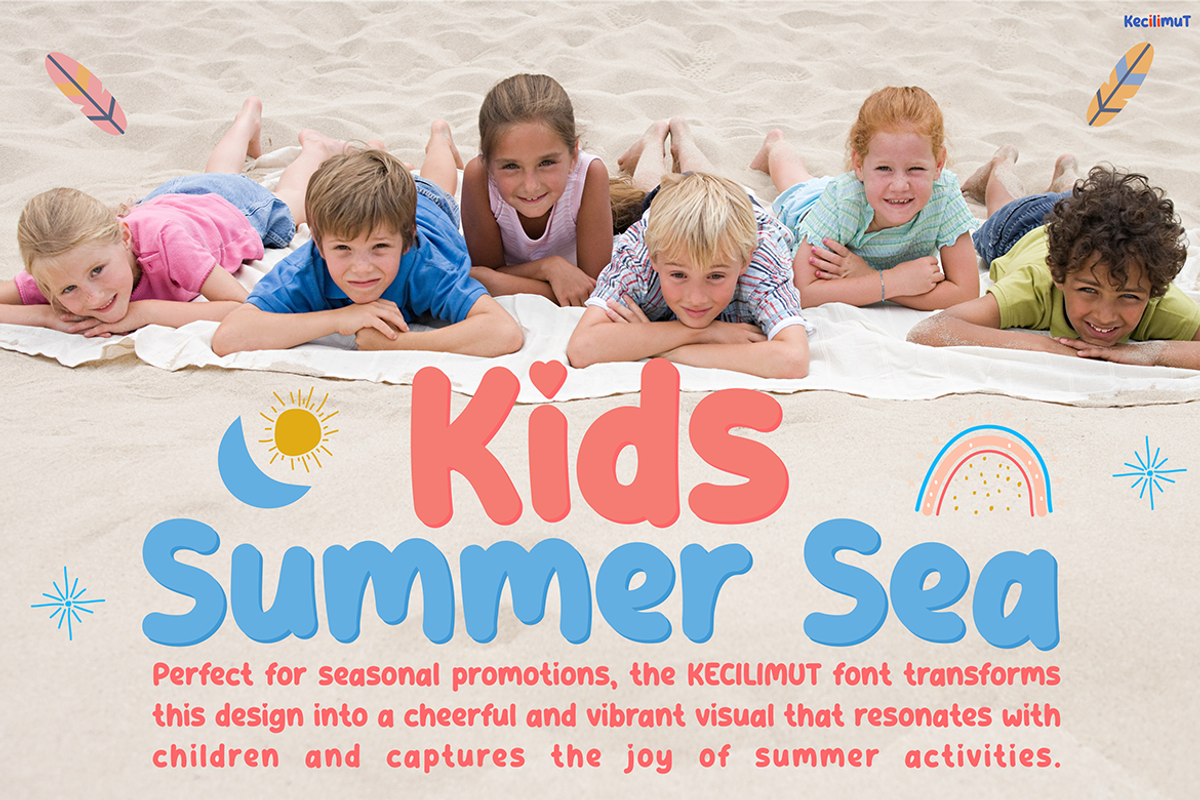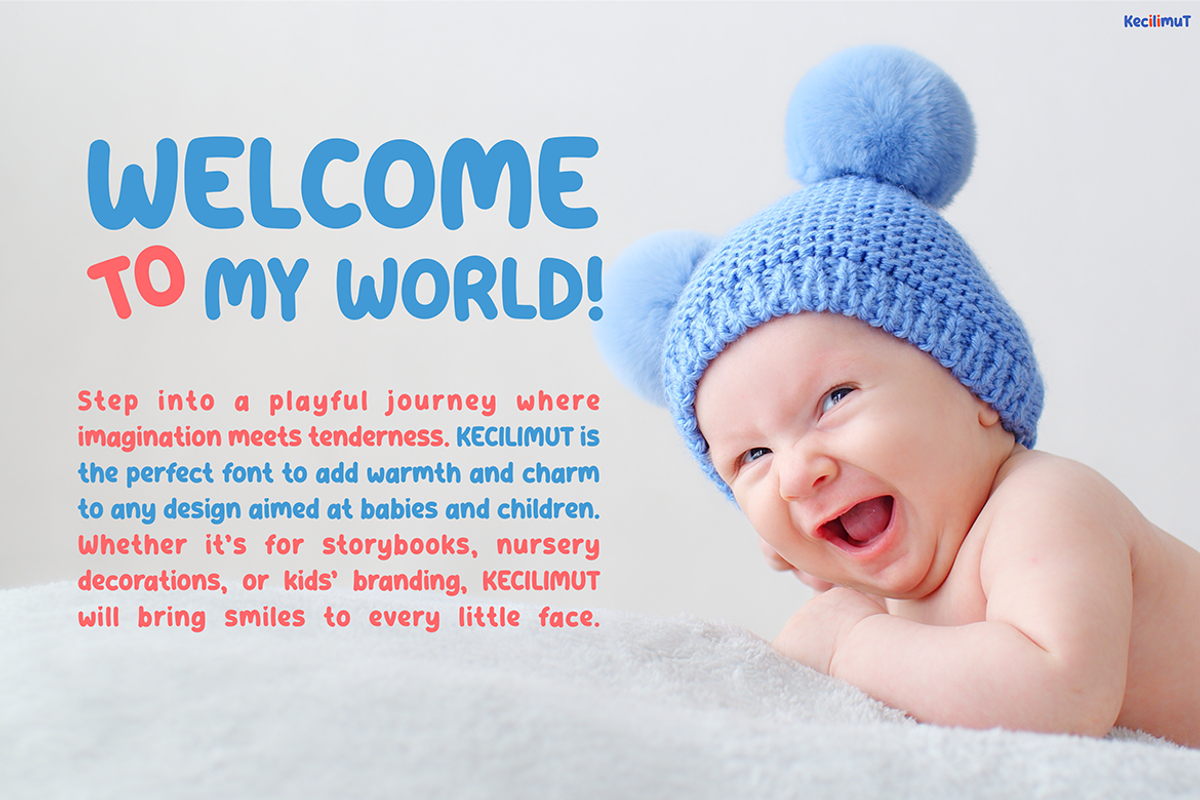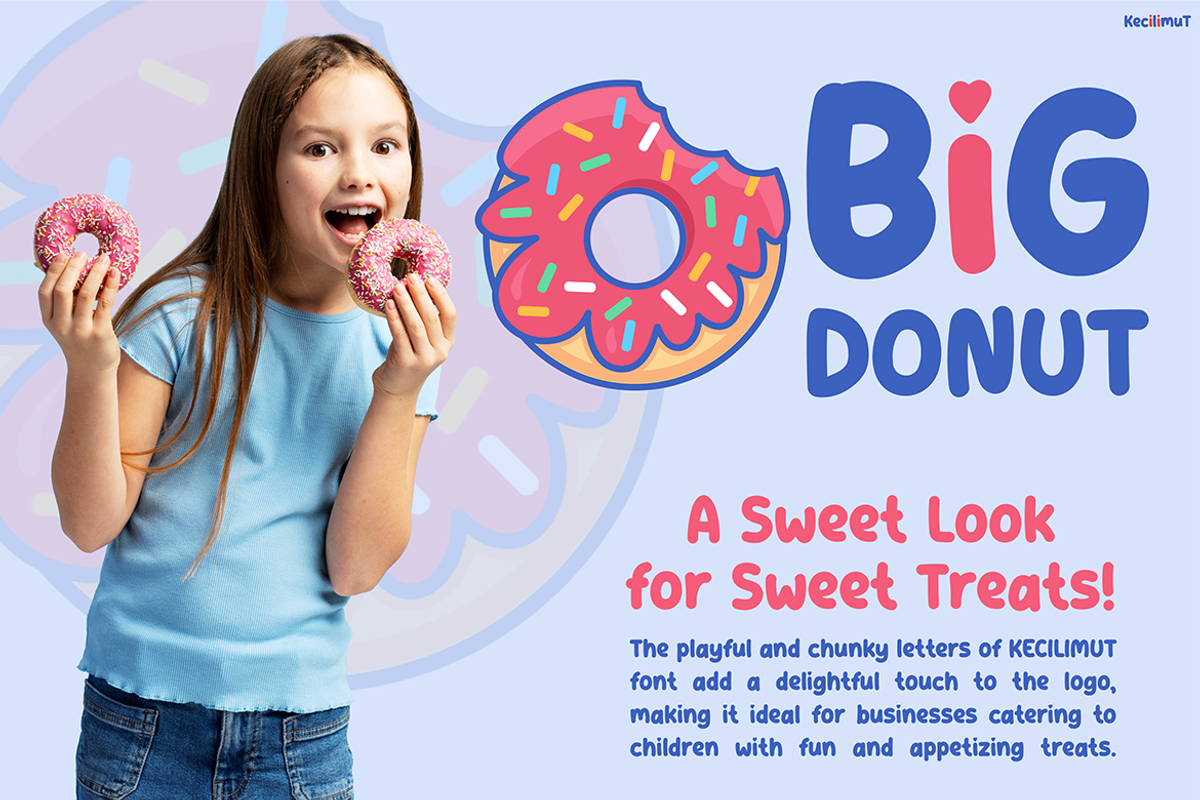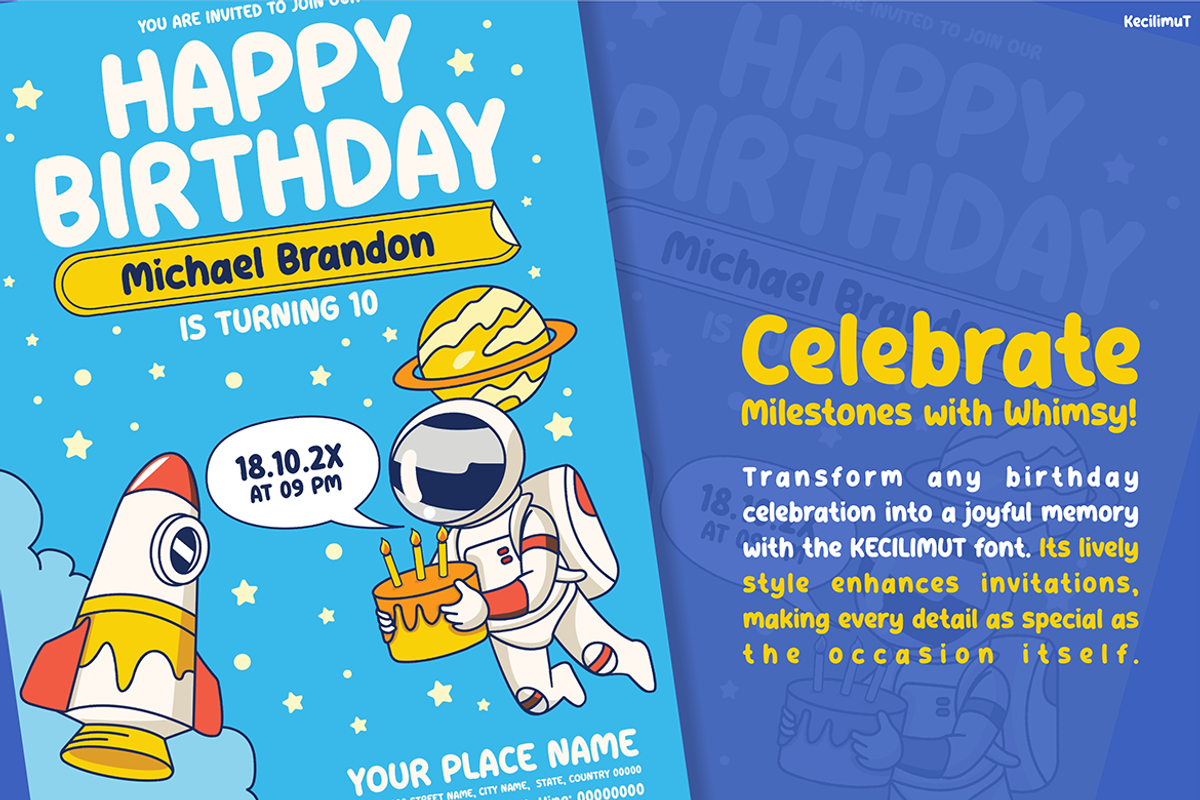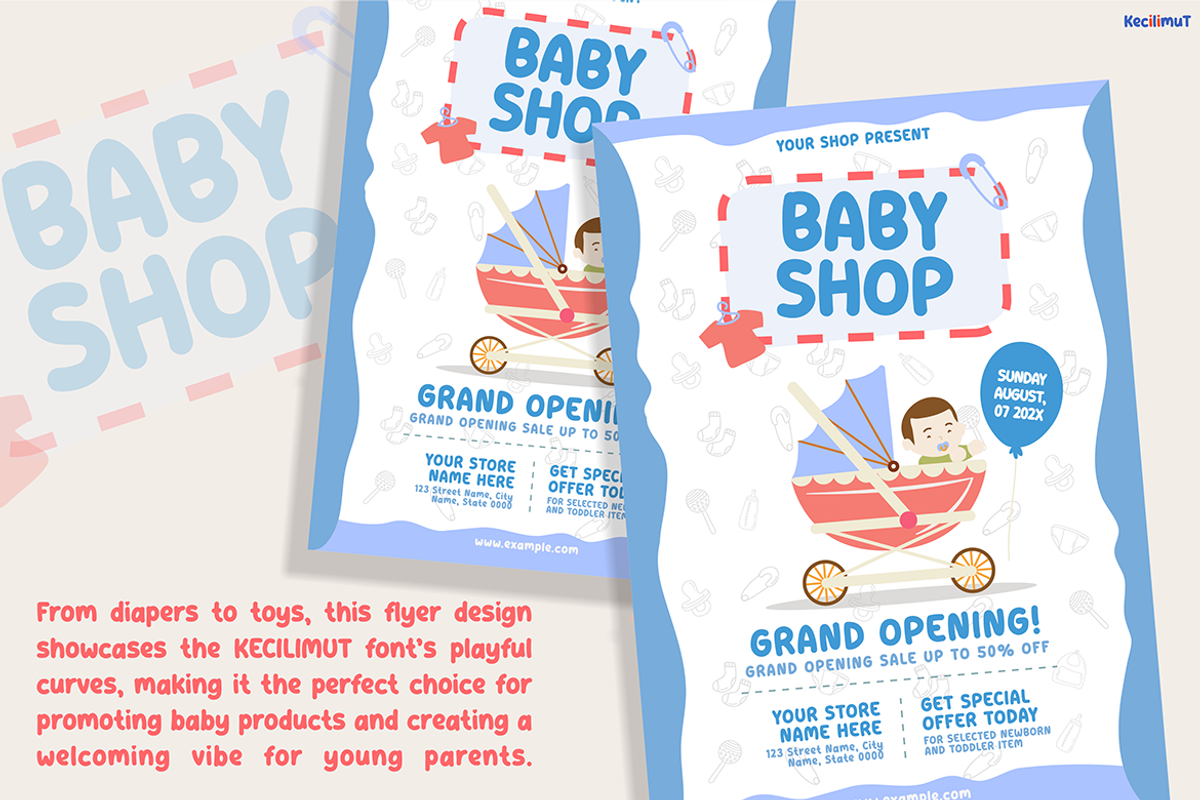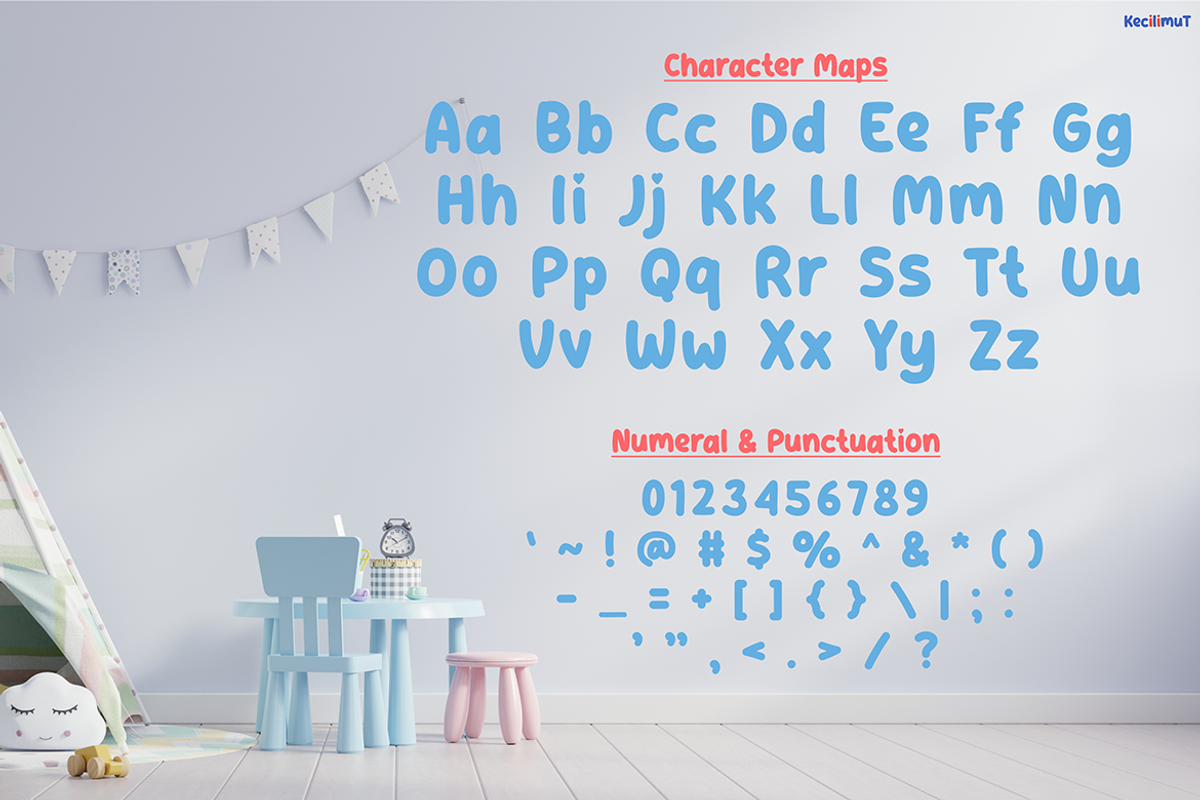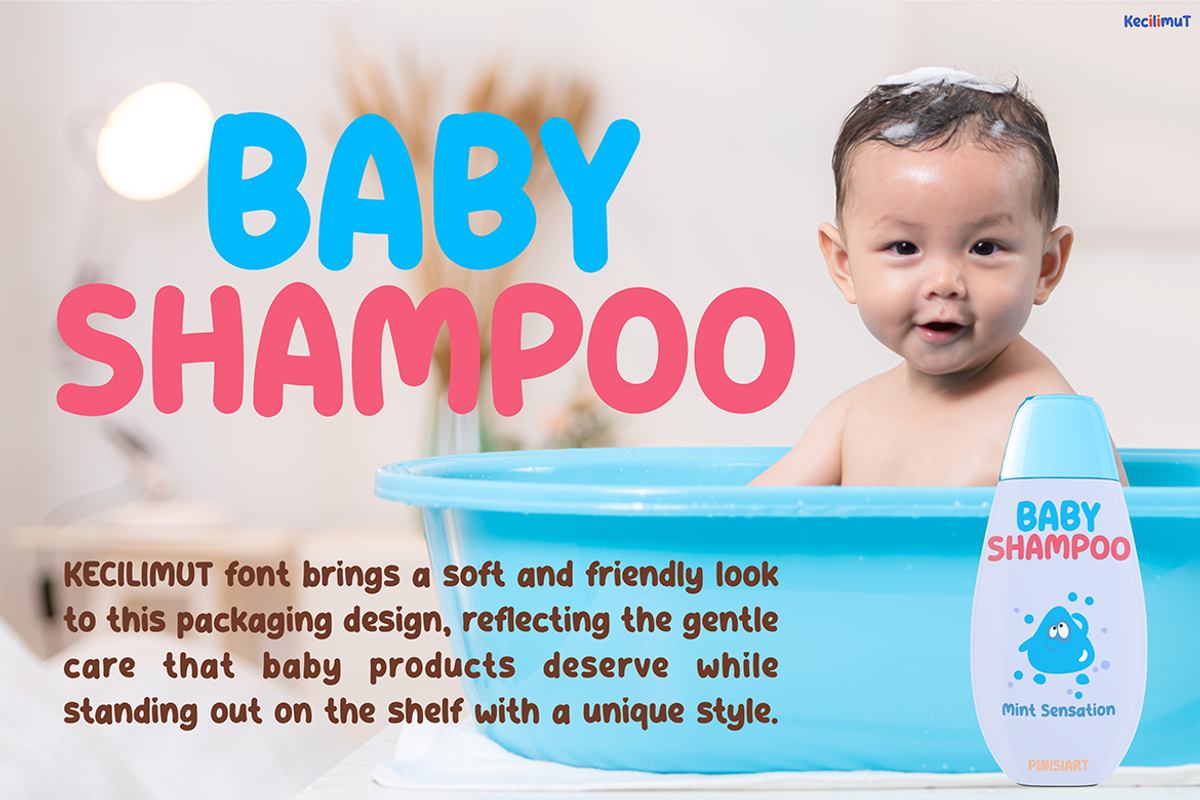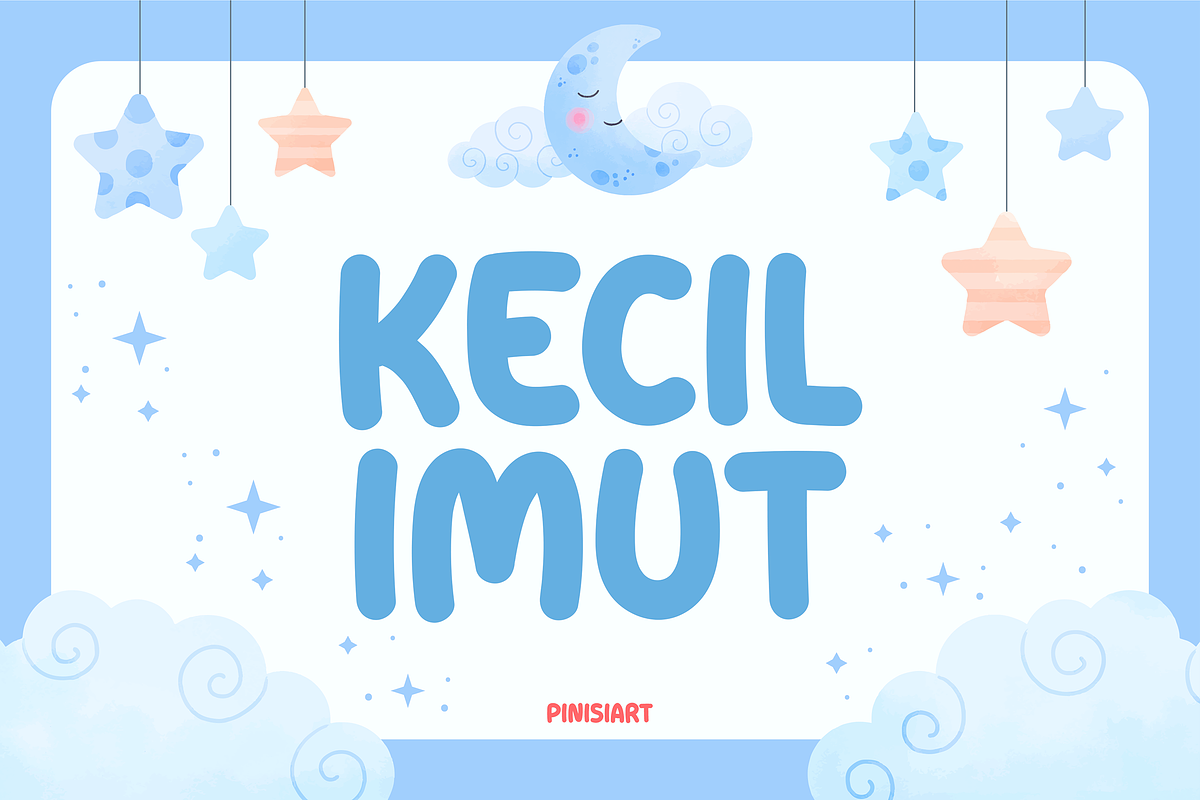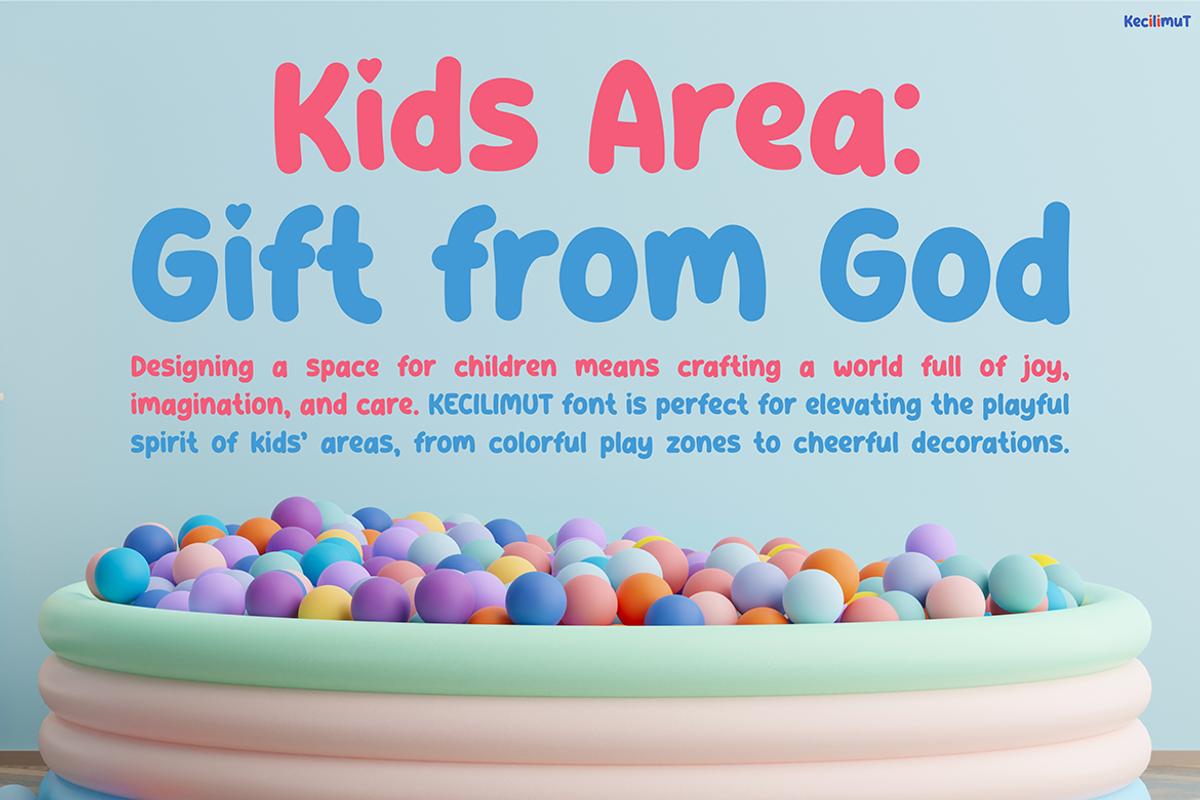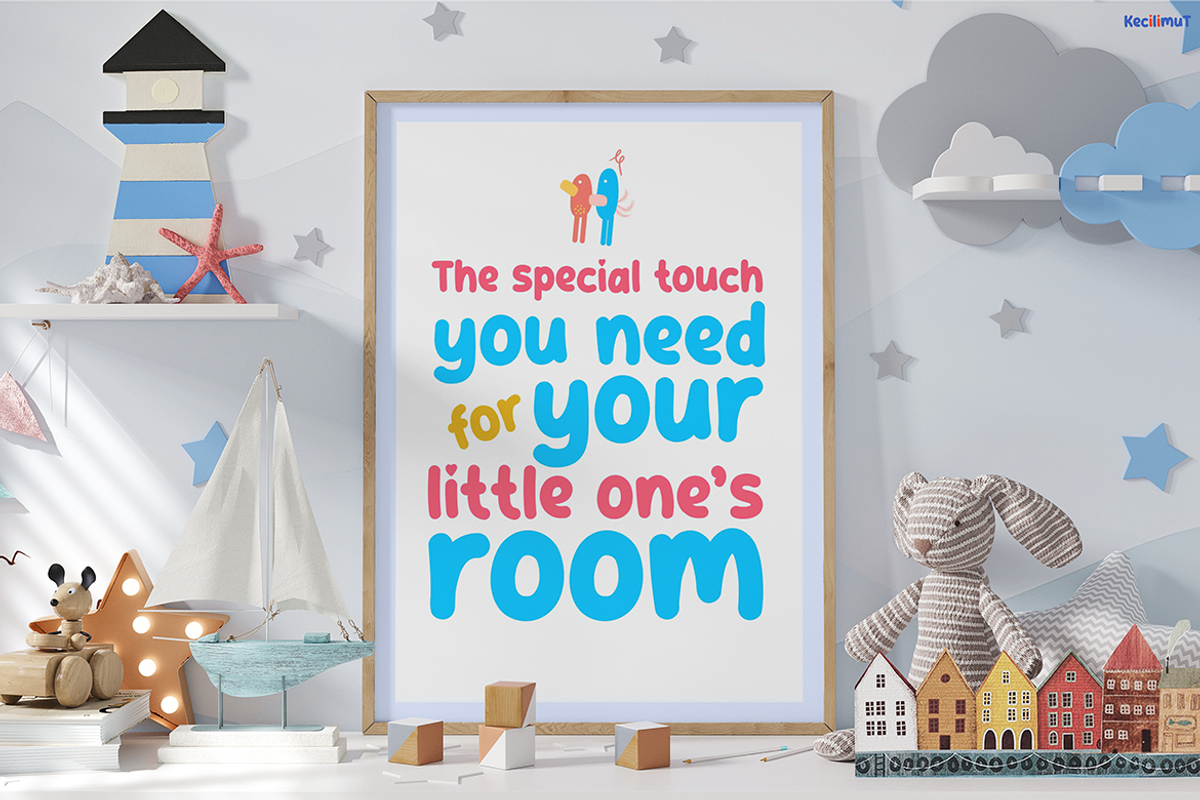
KECILIMUT
Kids Font Kecilimut is a playful and charming typeface, designed to captivate children and young audiences. With its hand-drawn style, it features soft, rounded edges and slightly uneven shapes, adding a sense of friendliness. This font is perfect for projects that need a lighthearted and whimsical touch.
Kecilimut brings joy and creativity to your designs. It is versatile, making it suitable for both print and digital platforms. The font combines readability with artistic expression, ensuring clarity while creating a playful atmosphere. Use it for headers, titles, or body text to give your projects a unique personality.
Its cheerful look makes it ideal for vibrant posters, colorful invitations, and educational materials. Kecilimut ensures your text is engaging and approachable. Whether on banners or small items like product packaging or social media graphics, this font shines.